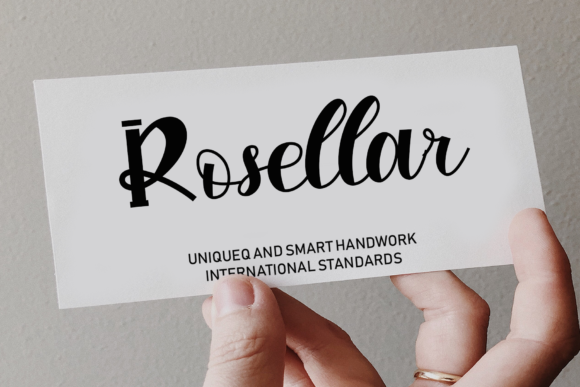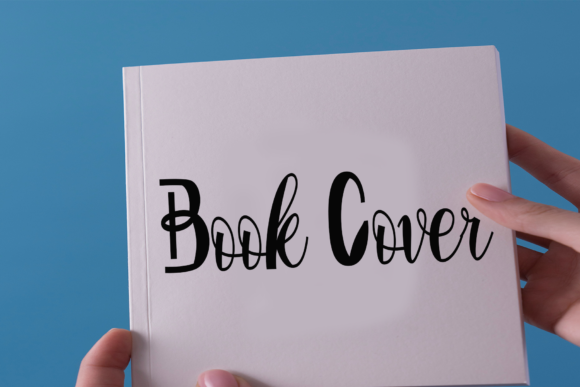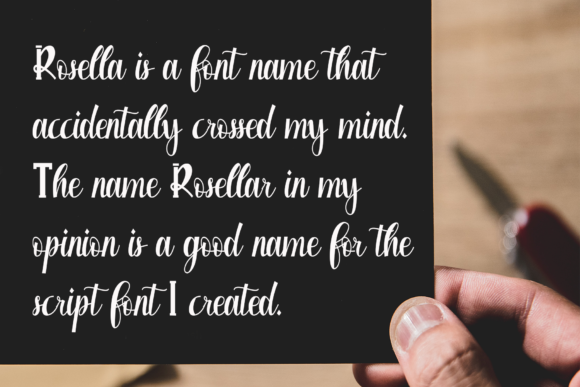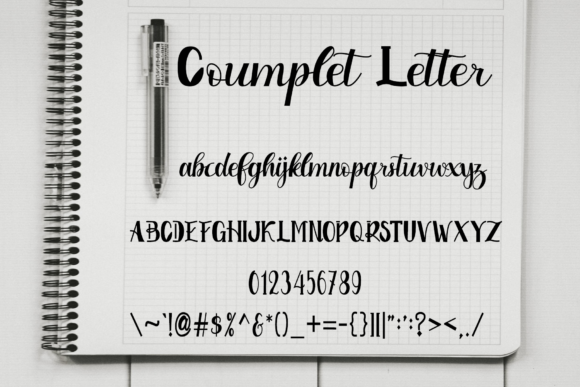
About Rosellar Font
Rosellar is a unique and attractive handwritten font. It will add a really fun touch, add to your most creative ideas and watch how they bring them to life.